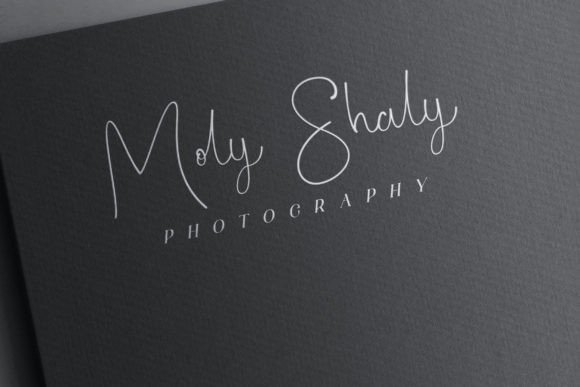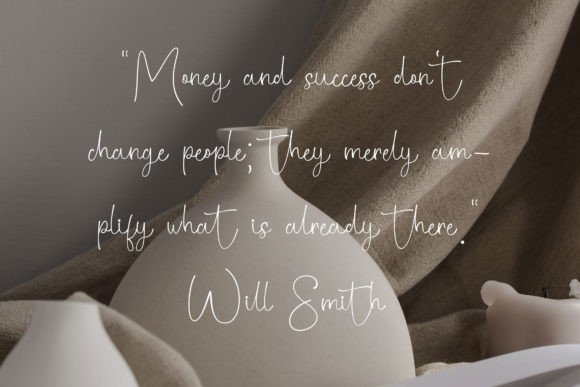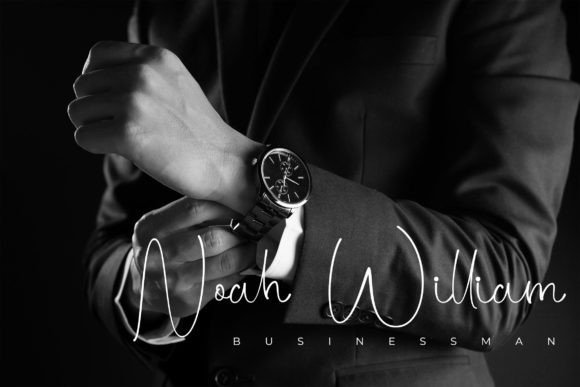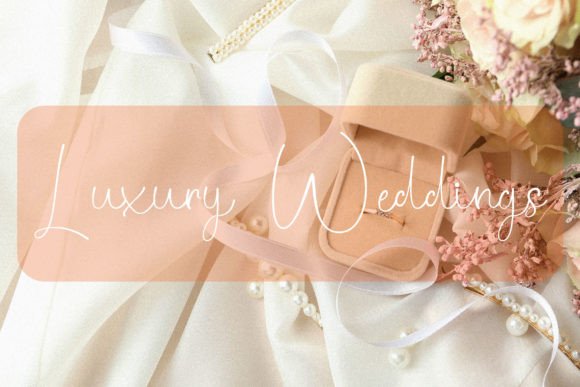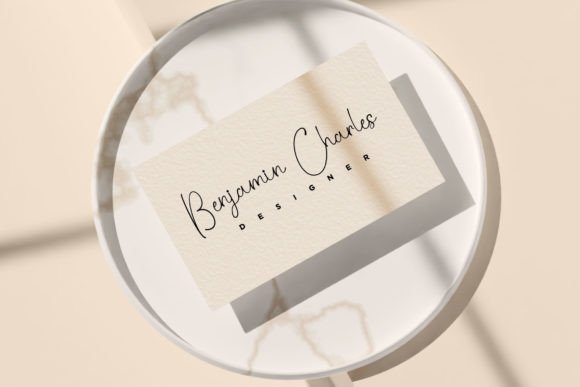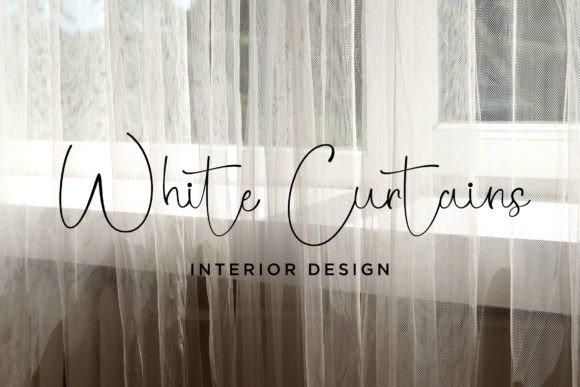
The Elegant Austina Font: A Designer’s New Best Friend
I’ll never forget the time I was working on a wedding invitation project, and my client asked for a font that was “elegant, yet playful.” I scoured the internet, tried out a dozen fonts, but nothing seemed quite right. That was until I stumbled upon the Austina font. This beautiful, thin handwritten font has been a game-changer for my designs ever since.
I’ve had the pleasure of working with Austina for a while now, and here’s what I think:
• ✨ Elegant and refined: Austina’s characters are beautifully crafted, making it perfect for projects that require a touch of sophistication.
• ✅ Versatile: This font pairs well with a wide range of designs, from wedding invitations to branding and packaging.
• 🎉 PUA encoded: With Austina, you can easily access all glyphs and swashes, giving you endless creative possibilities.
Now, I’m not going to sugarcoat it – there are a few quirks to be aware of:
• 🤔 Limited use in body text: Due to its elegant, thin design, Austina might not be the best choice for long blocks of body text.
• ⚠️ Requires OpenType support: To get the most out of Austina’s features, you’ll need to use a design platform that supports OpenType fonts.
The Story Behind Austina
Austina was designed with the intention of creating a font that was both elegant and accessible. The designer, a typography enthusiast, wanted to create a font that would be perfect for creative projects, such as wedding invitations, branding, and packaging. With its beautiful, thin design and PUA encoding, Austina has become a popular choice among designers and crafters.
What is PUA encoding? PUA (Private Use Area) encoding allows designers to access a font’s glyphs and swashes using a specific keyboard shortcut or software.
Is Austina suitable for body text? While Austina is a beautiful font, it’s not ideal for long blocks of body text due to its elegant, thin design.